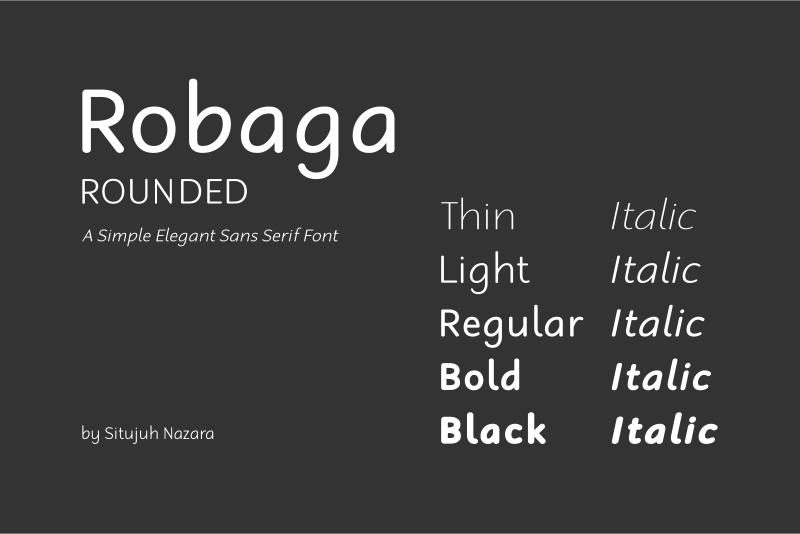
Font name: | Robaga Rounded |
Robaga Rounded is a sans serif family with a smooth, rounded look. It consists of ten family: Thin & Italic, Light & Italic, Regular & Italic, Bold & Italic, and Black & Italic. This complete family completes your need of font for heading, sub-heading, and content of printings and digital designs. Personal use: FREE (Donation is much appreciated!) For Commercial use, buy the license on my Creative Fabrica store: https://www.creativefabrica.com/designer/situjuh/ Contact me [c7nazara@gmail.com] or leave a comment on https://7ntypes.com if you have any request or question. Thank you. |